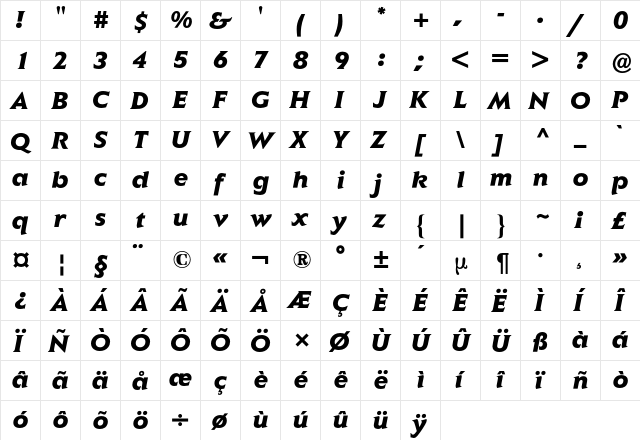
Elan BQ Regular Font Preview
Elan BQ Regular
Elan BQ Regular Font Details
Design Context for Elan BQ Typeface
Elan BQ takes a measured approach to typography — its balanced proportions and neutral character make it a reliable workhorse for both digital and print work.